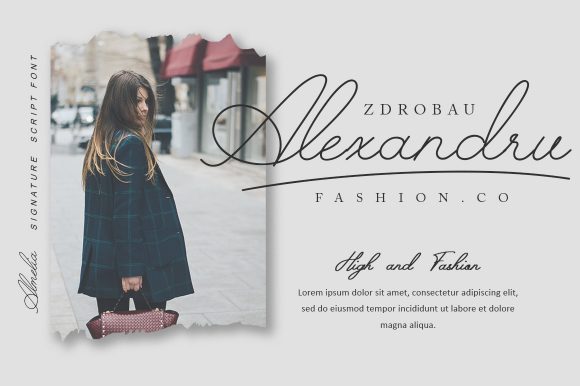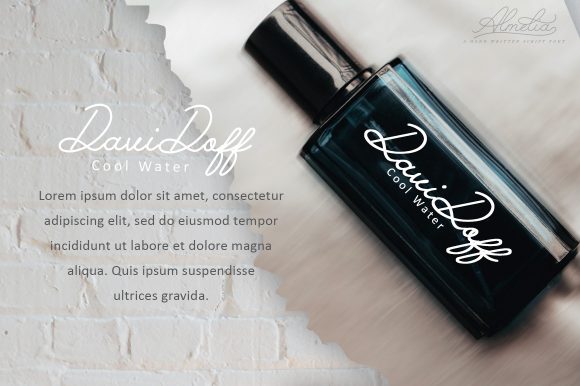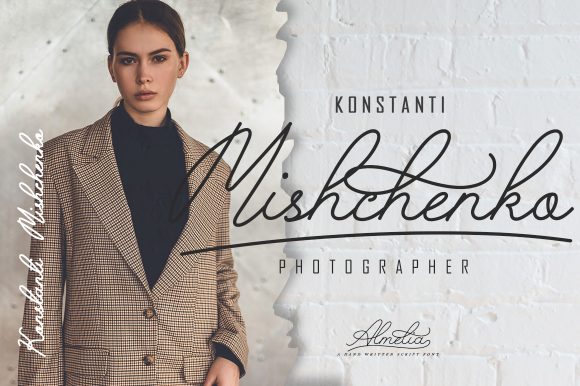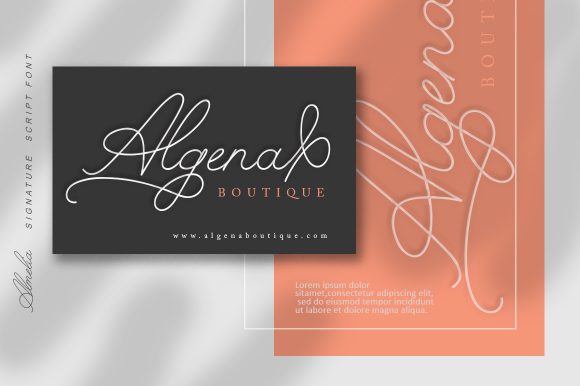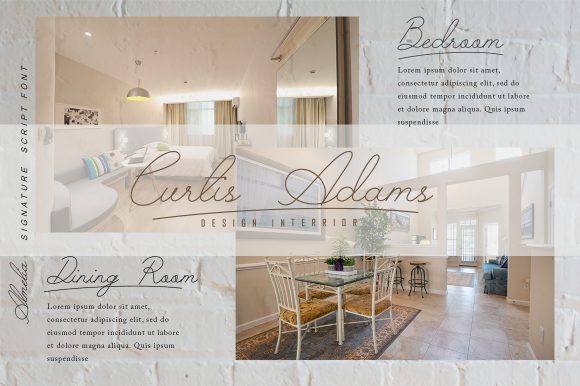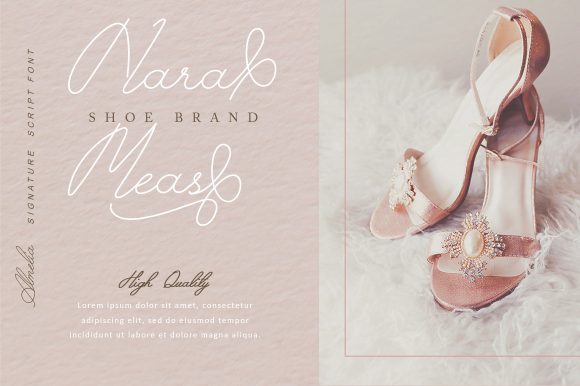
The Almelia Font: A Luxurious Addition to Your Design Arsenal
I’ll never forget the time I was working on a luxury branding project for a high-end jewelry client. I had spent hours perfecting the logo design, but something was missing. The font I had chosen just wasn’t doing justice to the intricate details and elegance of the brand. That’s when I stumbled upon the Almelia font, and it completely transformed the design. In this article, I’ll share my experience with this beautiful light handwritten font and explore its features, uses, and alternatives.
An Honest Review of Almelia Font
So, what makes Almelia font so special? Here are some things I love about it:
- ✨ Unique feel: Almelia has a distinct, elegant handwritten style that sets it apart from other fonts.
- ✅ Luxury spark: This font adds a touch of sophistication and glamour to any design project.
- 💻 PUA encoded: With PUA encoding, accessing glyphs and ligatures is a breeze, making it easy to get creative with your designs.
While Almelia is an amazing font, it’s not without its quirks. Here are a few things to keep in mind:
- ⚠️ Limited use in body text: Due to its light and elegant nature, Almelia might not be the best choice for lengthy body text.
- 🤔 Occasional kerning issues: As with any font, you might encounter some kerning issues, especially when using it in combination with other fonts.
The Story Behind Almelia Font
While the true story behind Almelia font is unknown, it’s easy to imagine that it was created by a designer who wanted to craft a unique, luxurious font for creative projects. Perhaps the designer was inspired by the elegance of handwritten scripts and the sophistication of luxury brands. Whatever the inspiration, Almelia has become a popular choice among designers and crafters.
| Font Name | Almelia Font |
| Author | indrotanwijoyo |
| What is Almelia font best used for? | Almelia font is ideal for luxury branding, high-end designs, and creative projects that require an elegant, handwritten feel. |
| Is Almelia font PUA encoded? | Yes, Almelia font is PUA encoded, making it easy to access glyphs and ligatures. |